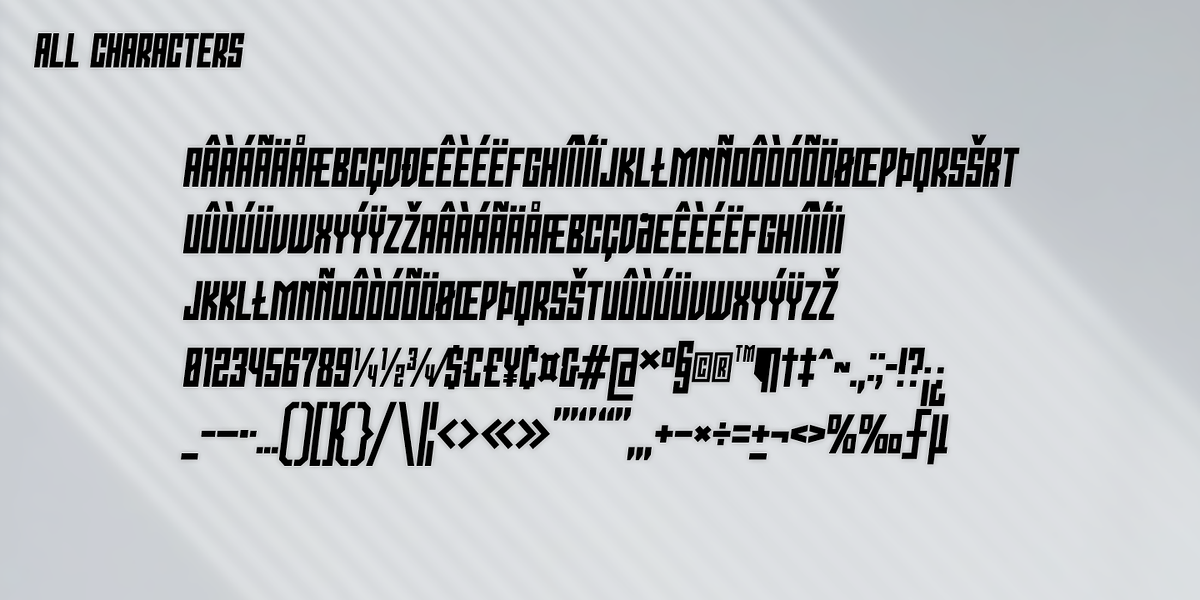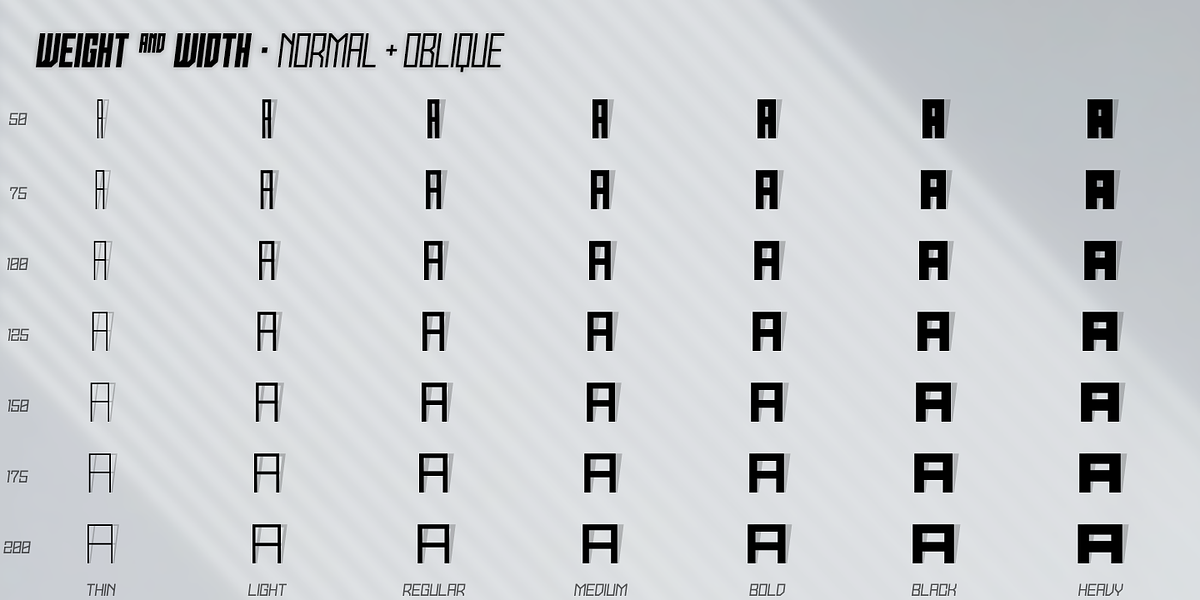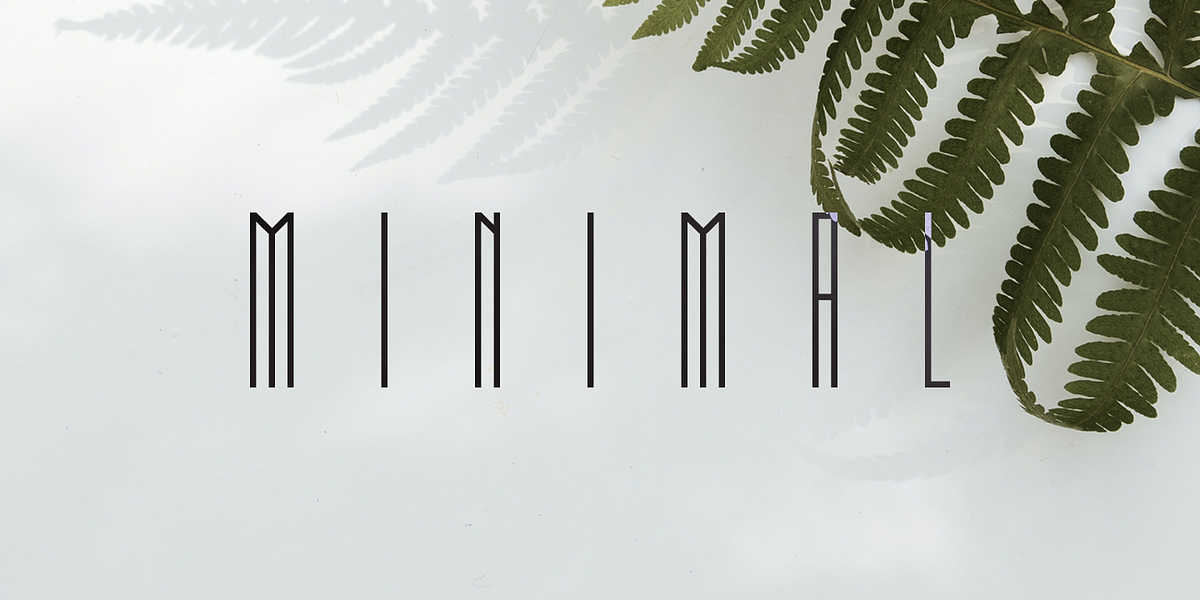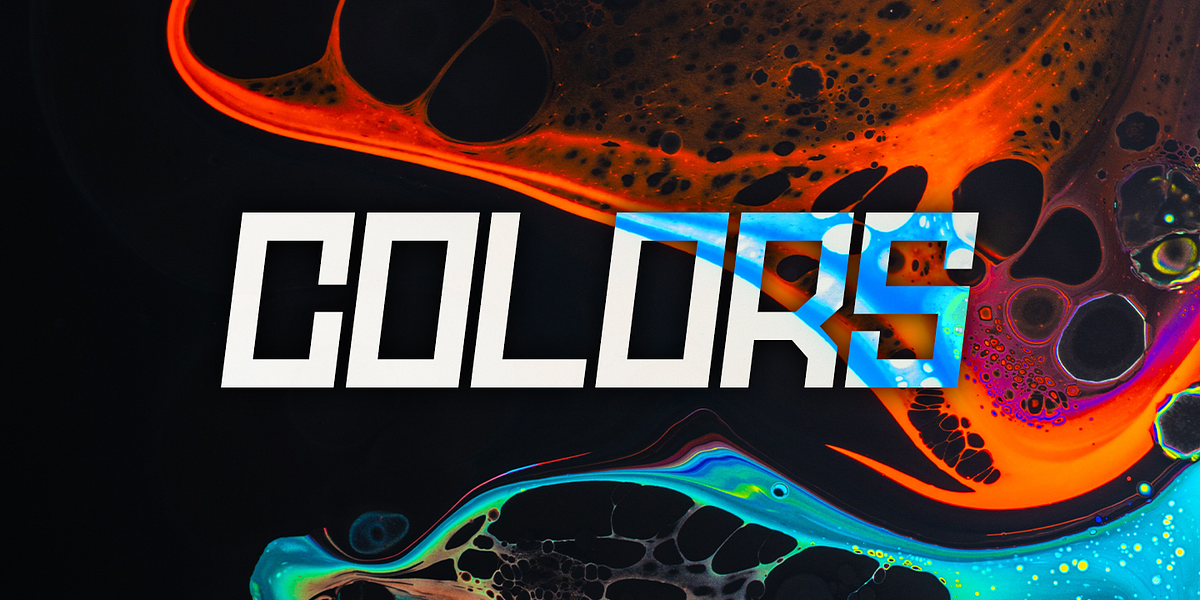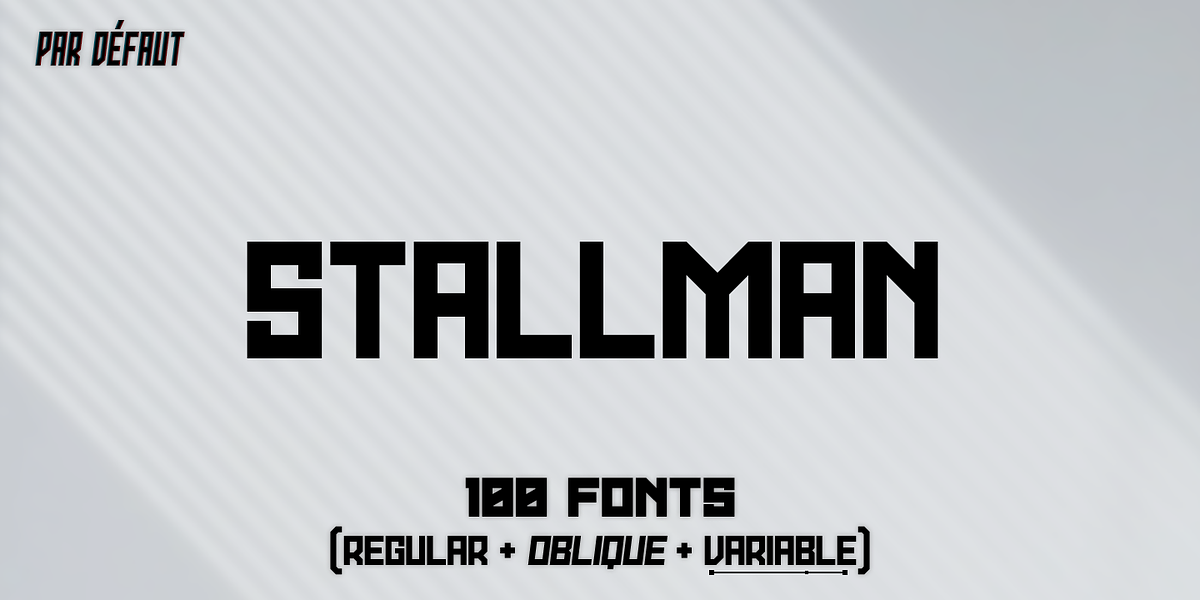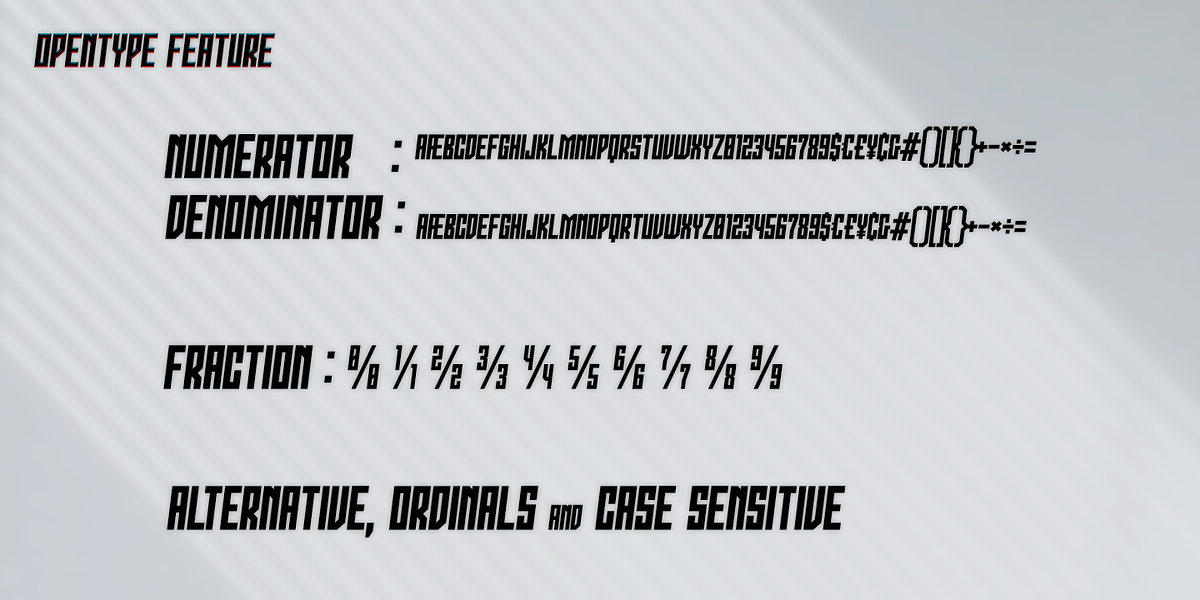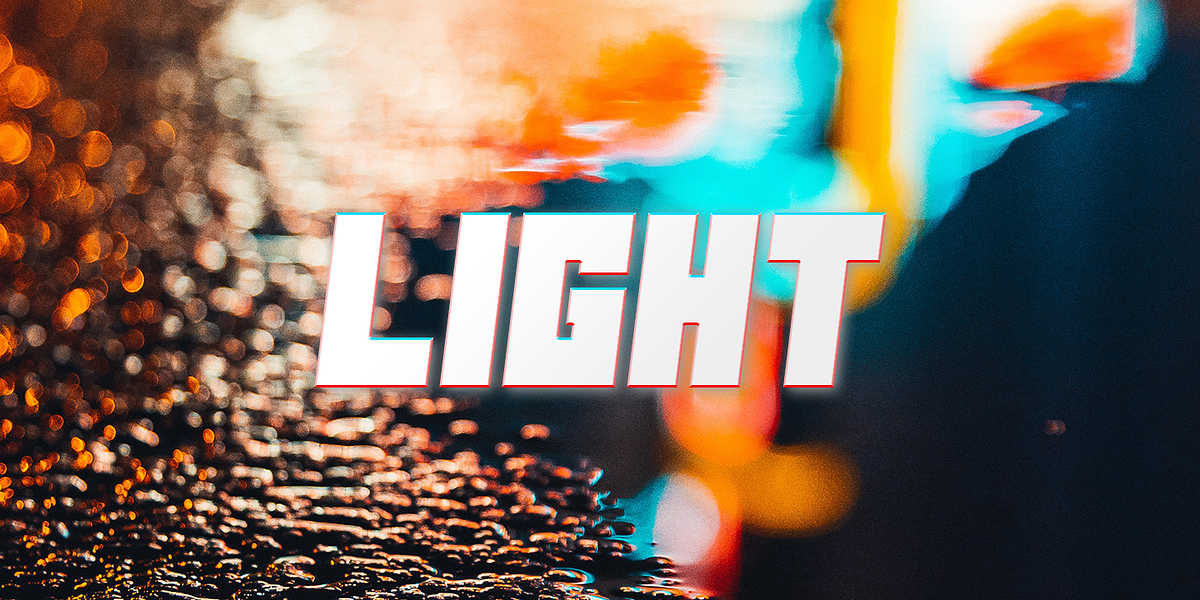
Stallman
Stallman is a versatile geometric sans-serif font family designed for display purposes. Its clean lines and minimalist aesthetic make it perfect for titles, headlines, and branding materials. The font features a range of weights and widths, along with extensive OpenType features like alternates, fractions, and stylistic sets, allowing for greater typographic control and customization. Its retro influences lend a touch of industrial charm while remaining modern and impactful.